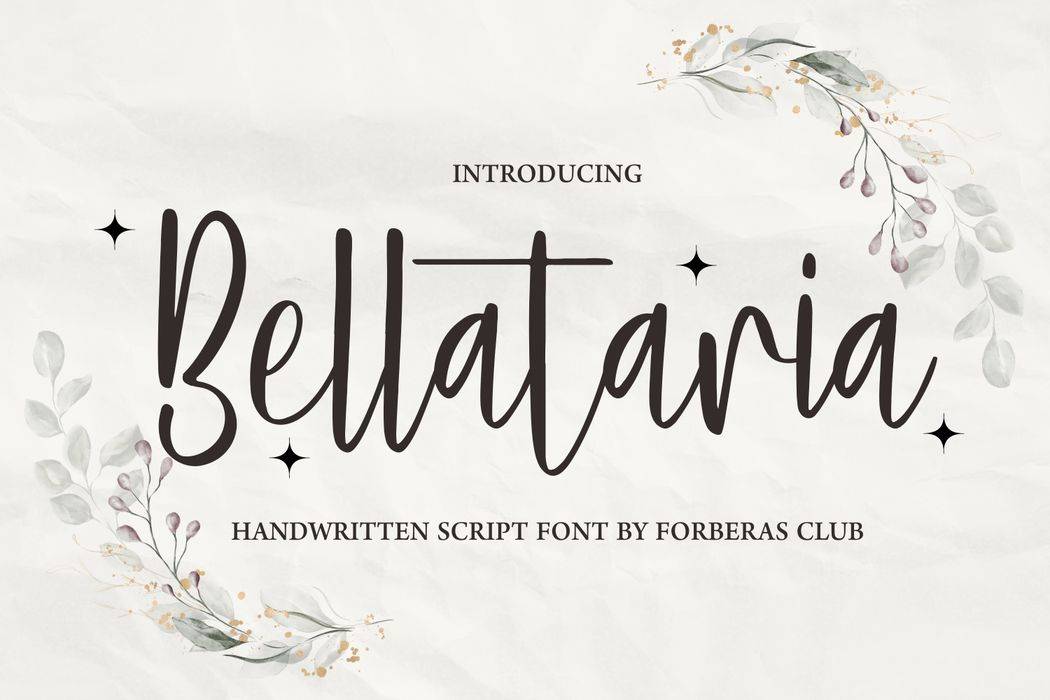
Bellataria is a tall, slender script font with a playful and handwritten feel, featuring smooth, flowing lines and consistent stroke weight. Its elegant yet casual style makes it perfect for creative branding, invitations, and personalized design projects that want to convey warmth and charm. The font’s airy spacing and unique letterforms add a friendly and approachable personality, ideal for fashion, lifestyle, and children’s products.
Bellataria Font
About Bellataria Font
| Font family | Bellataria Font |
| Designer | forberas |